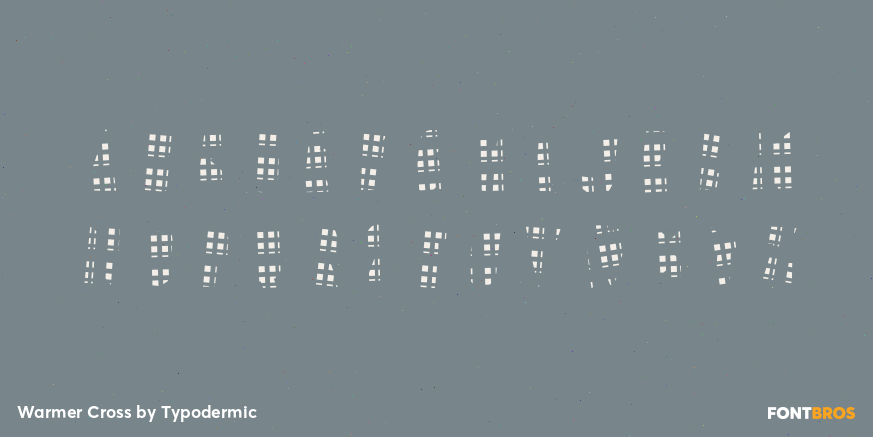
Warmer Cross
Buy NowWarmer Cross isolates one of the aligned pattern components in Warmer’s plaid construction. Broad crossing bands appear only where they pass through the family’s narrow letterforms, leaving the rest transparent. The layer can create an open woven texture by itself, but its intended strength is registration: place it over Warmer Solid for colored bands inside a filled word, then add Check to complete the more intricate textile pattern.
Use Warmer Cross for apparel collection graphics, swatch-book covers, lodge promotions, textile displays, hangtags, and motion sequences that build a plaid title layer by layer. Keep every aligned style at the same size, position, tracking, and line spacing so the components register precisely. Solid supplies the readable body, while Check contributes the complementary block pattern and additional color.